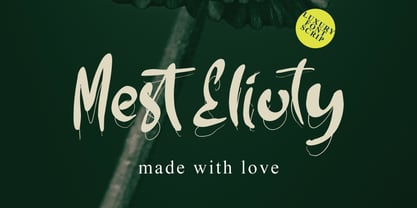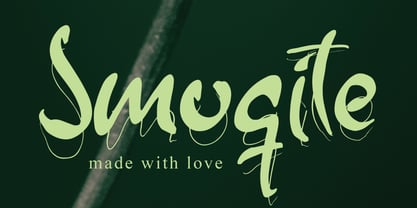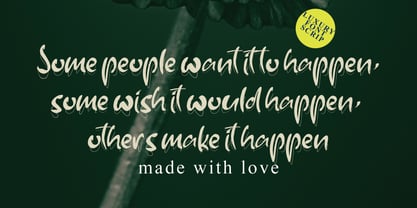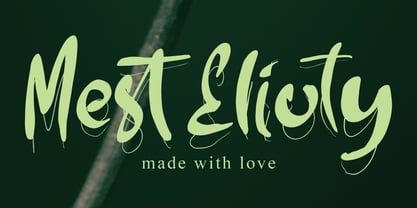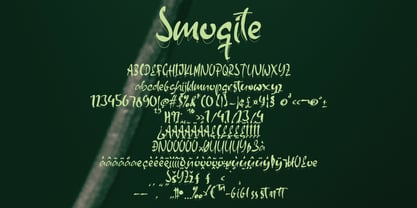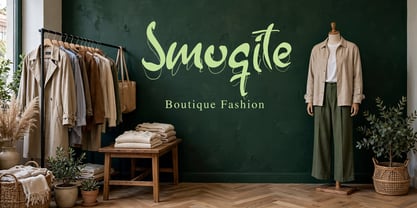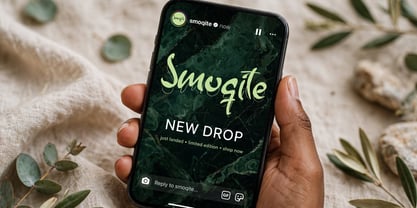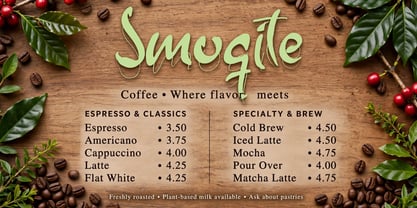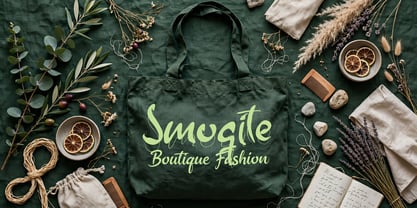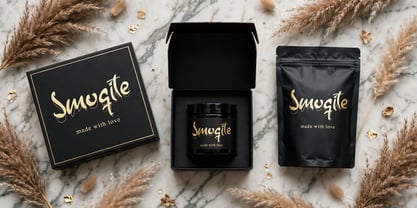
The Smoqite
The The Smoqite Font Family was designed by Dhoni Trihatmoko and published by Ayska. The Smoqite contains 1 styles. More about this family
Experience the magnetic elegance of The Smoqite, an enchanting mixture of contemporary style and timeless craftsmanship. Beloved for its compelling charm, The Smoqite serves as a faithful companion in your innovative digital endeavors, ensnaring the senses with its broad array of applications. It infuses a novel twist onto blog pages, adds a unique panache to your digital planner designs, bestows custom attributes on your invites, and enriches your handmade cards with undeniable authenticity. Revel in the relentless allure and inventive nature of The Smoqite, the ultimate choice for inviting a whisper of vintage allure into treasured photo mosaics or elevating your home's aesthetic appeal. Be captivated by the hypnotic power of The Smoqite as it turns ordinary digital interactions into riveting, appealing masterpieces. Allow The Smoqite to guide your artistic exploration, leaving lasting imprints of dynamic creativity. Embrace the artistic majesty of The Smoqite and watch your intrinsic creative limits evolve into ground-breaking revelations.